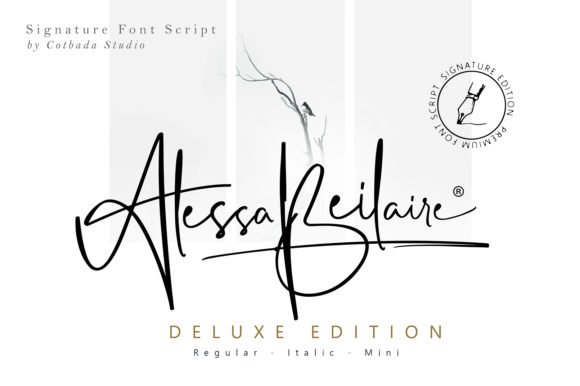
The Perfect Script Font for Your Next Design Project
Have you ever been in a creative flow, pouring your heart and soul into a design project, and then suddenly, the perfect font pops up in your mind? That’s exactly what happened to me when I stumbled upon the Alessa Beilaire Font. Its elegant and classy script style immediately caught my attention, and I knew I had to share it with the world.
The Alessa Beilaire Font is a versatile and highly readable font that comes in three stylish variations. It’s perfect for adding a touch of sophistication to your designs, whether it’s a watermark on a stunning photograph, a signature or logo, or even a quote on a beautiful album cover.
Alessa Beilaire Font Key Features
• Unique Characteristics: The font features a unique blend of modern and elegant elements, making it perfect for creating sophisticated and stylish designs.
Alessa Beilaire Font Review
As a designer, I was excited to explore the Alessa Beilaire Font, but my experience was a mixed bag. Here’s what I liked and disliked.
• The elegant, handwritten feel of the font is perfect for creating a sense of sophistication and luxury.
• The numerous weights and styles offer versatility for various design projects, from invitations to magazine articles.
• The font’s unique characteristics, such as the swashes and flourishes, add a touch of personality to any text.
• The font may be too ornate for some projects, potentially overpowering the content.
• The font’s readability can suffer in certain font sizes or at a distance, making it less suitable for body text.
Overall, the Alessa Beilaire Font is a great choice for designers who want to add a touch of elegance and sophistication to their projects. However, it’s essential to consider the potential limitations and use it judiciously to avoid overwhelming the content. With careful selection and application, this font can be a valuable addition to any designer’s toolkit.
Use the Alessa Beilaire Font to create elegant and sophisticated designs for:
2. Luxury brand logos and marketing materials.
3. High-end fashion and beauty product packaging.
4. Any design project that requires a touch of sophistication and elegance.
Alternatives to Alessa Beilaire Font
Great Vibes Font is a beautiful, elegant script font ideal for creating a sophisticated and luxurious look. It’s perfect for designing wedding invitations, certificates, and other formal documents. Great Vibes Font is more elegant and refined compared to Alessa Beilaire Font, which has a more whimsical feel.
Carolyna Pro Font is a modern, elegant script font that’s perfect for designing high-end fashion brands, luxury products, and premium services. It’s also great for creating invitations, menus, and other promotional materials. Carolyna Pro Font is more polished and refined compared to Alessa Beilaire Font, which has a more playful feel.
Alex Brush Font is a beautiful, handwritten script font that’s perfect for creating a personal and intimate look. It’s ideal for designing wedding invitations, greeting cards, and other personal documents. Alex Brush Font is more relaxed and casual compared to Alessa Beilaire Font, which has a more formal feel.
Dancing Script Font is a playful, elegant script font that’s perfect for creating a fun and lively look. It’s ideal for designing party invitations, social media graphics, and other promotional materials. Dancing Script Font is more playful and energetic compared to Alessa Beilaire Font, which has a more sophisticated feel.